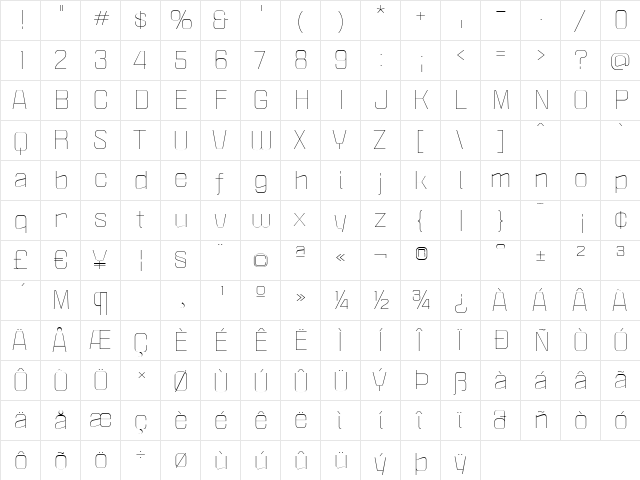
Politica XT Light
Light · Alejandro Paul Alejandro Paul & Alfredo Graziani ·
DesignerAlejandro Paul & Alfredo Graziani
Design Context for Politica XT Typeface
Politica XT is a composed and adaptable typeface that performs quietly and consistently across a wide range of design contexts. Its slender proportions lend an understated elegance to any composition.